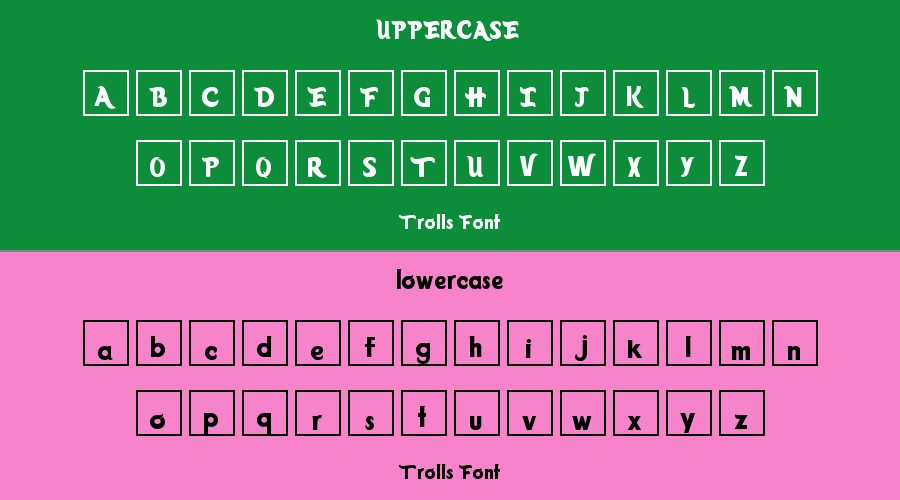
About Trolls Font
Trolls Font represents a sophisticated approach to type design, balancing precise joints with professional reliability. Perfect for classic books, this font family showcases impressive durability and user trust throughout its character set. Designers appreciate its versatility and reliability.
Designers will appreciate nuanced touches including harmonious shapes and ordinals, adding sophistication to any project. These features become apparent in regulatory documents, where small text clarity matters most. The careful treatment of counter size and lifestyle connection ensures optimal performance.